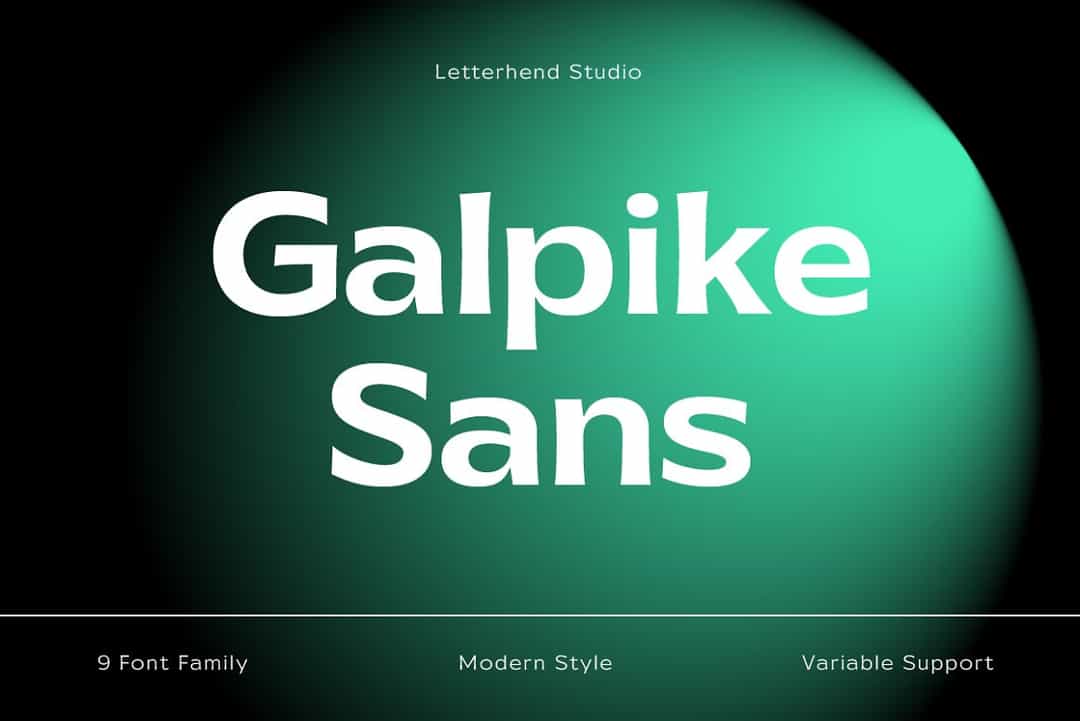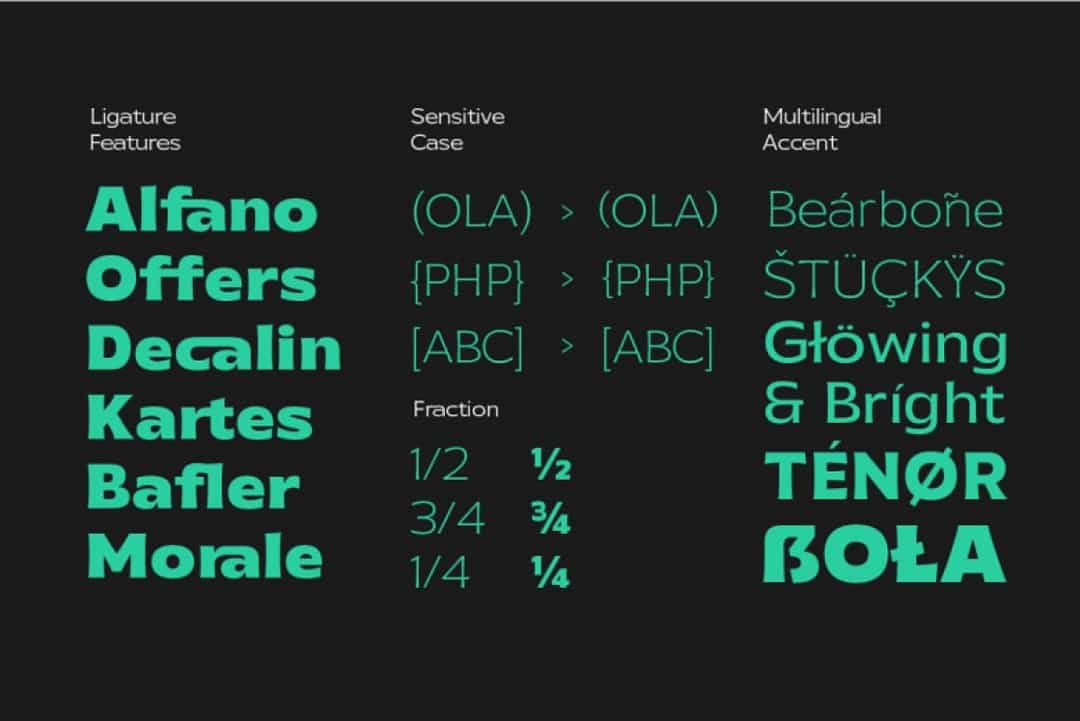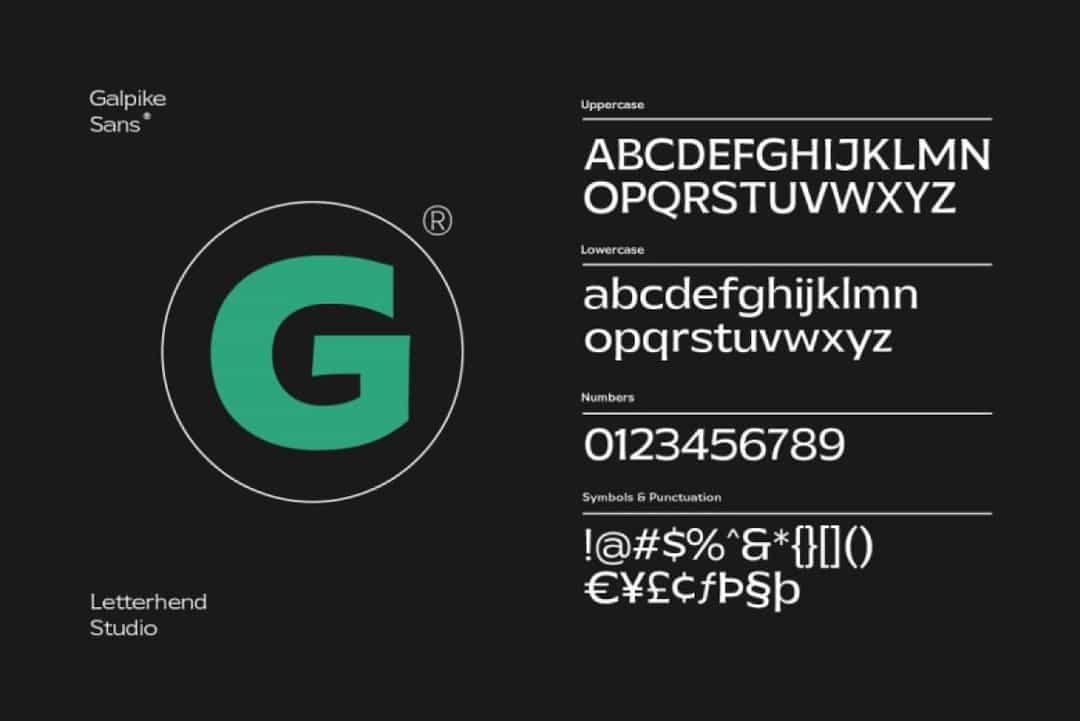
Galpike Sans Serif Font is a versatile typeface with clean and simple designs, featuring nine weights which range from medium, regular, thin to bold, semibold lighter extralight black styles with 18 styles in total to add character and flair to any design. Ideal for branding projects, publishing magazines, titles, books and UX, UI design.